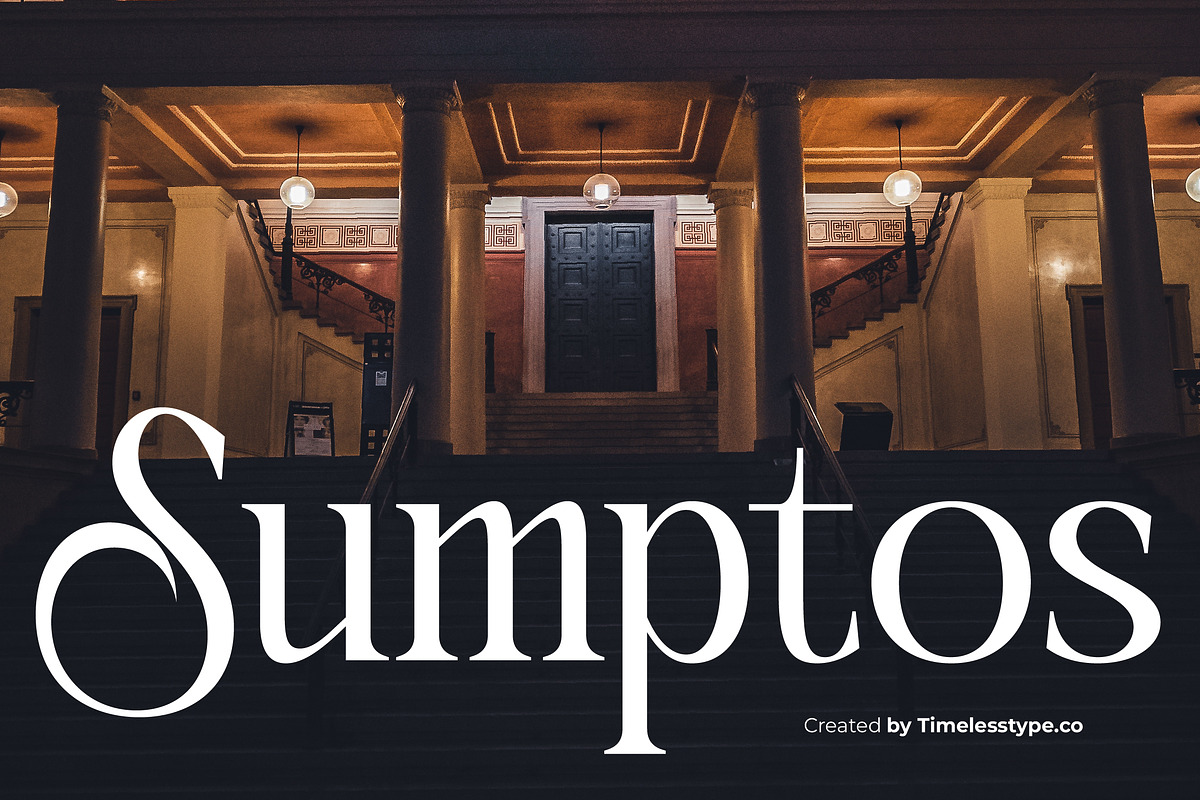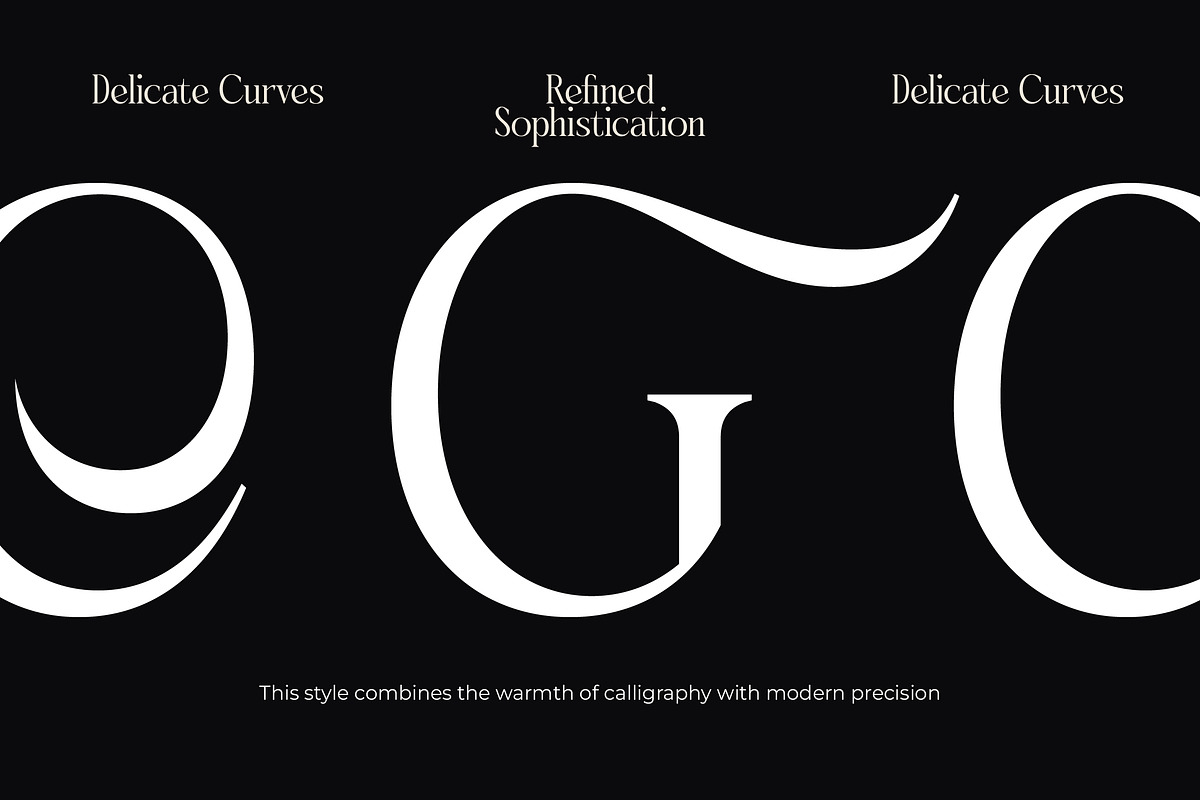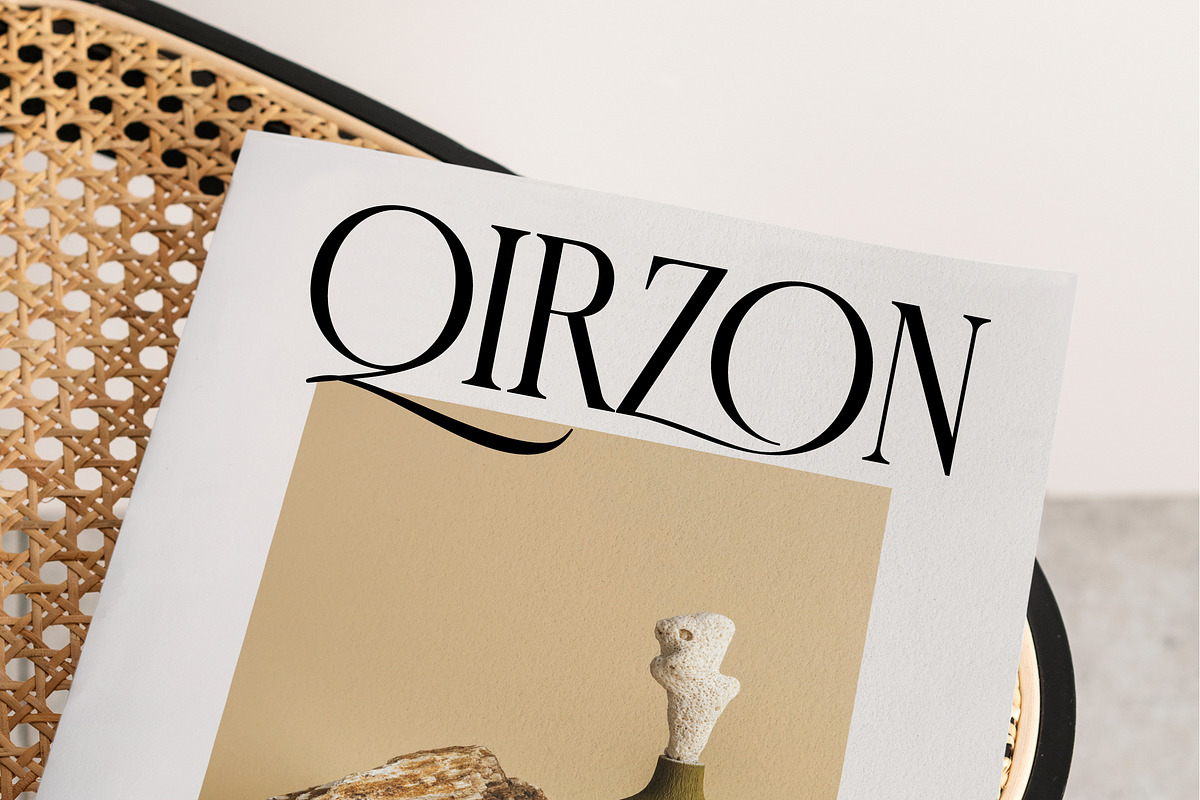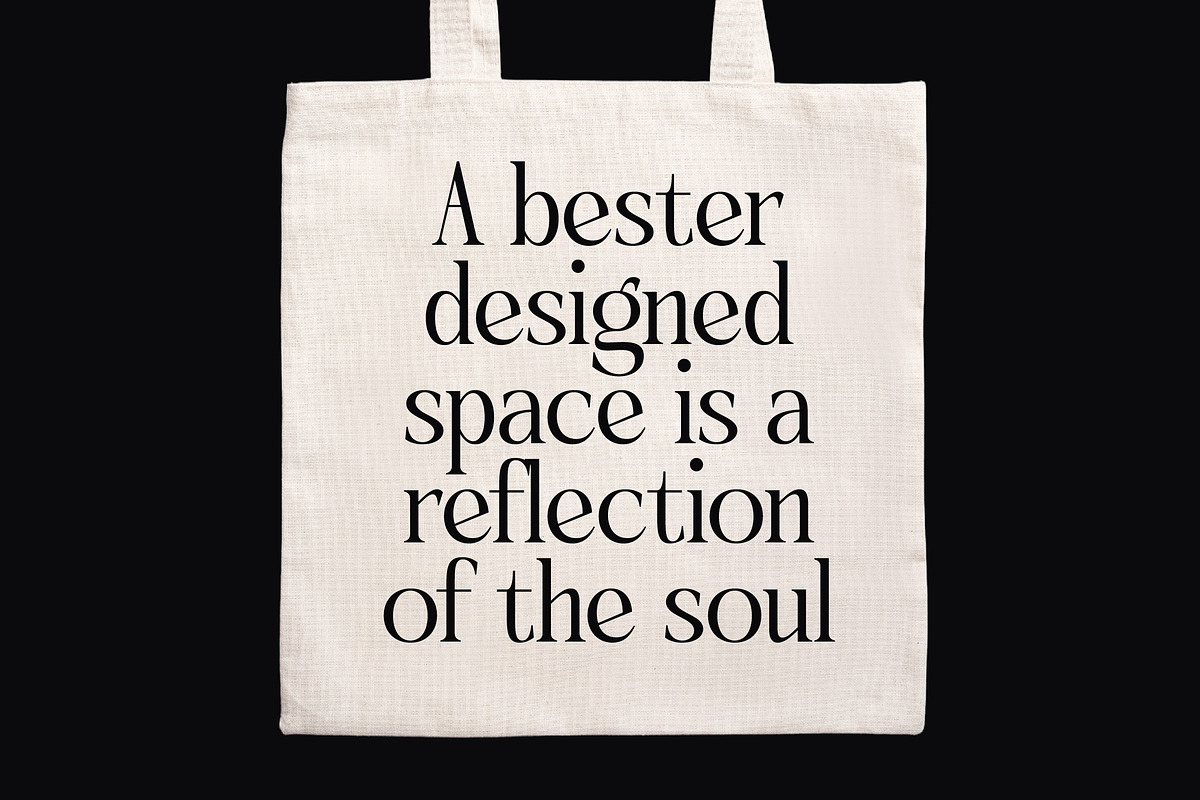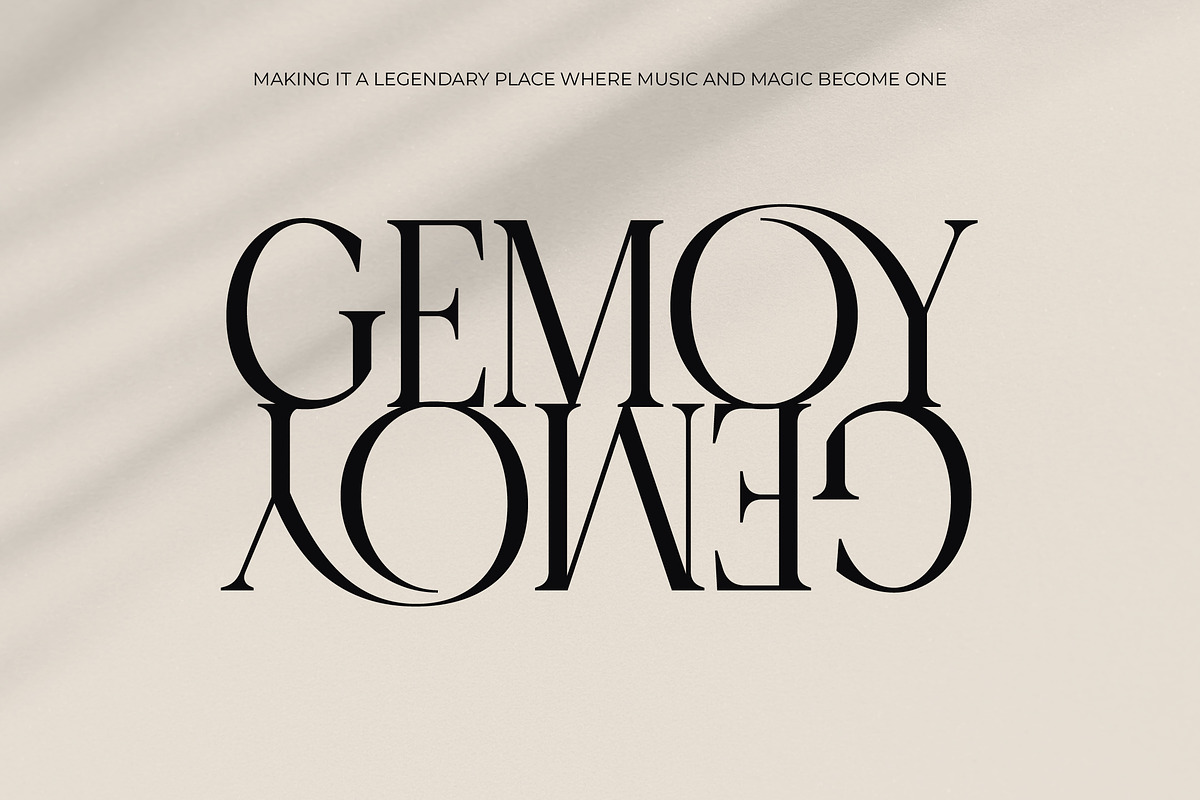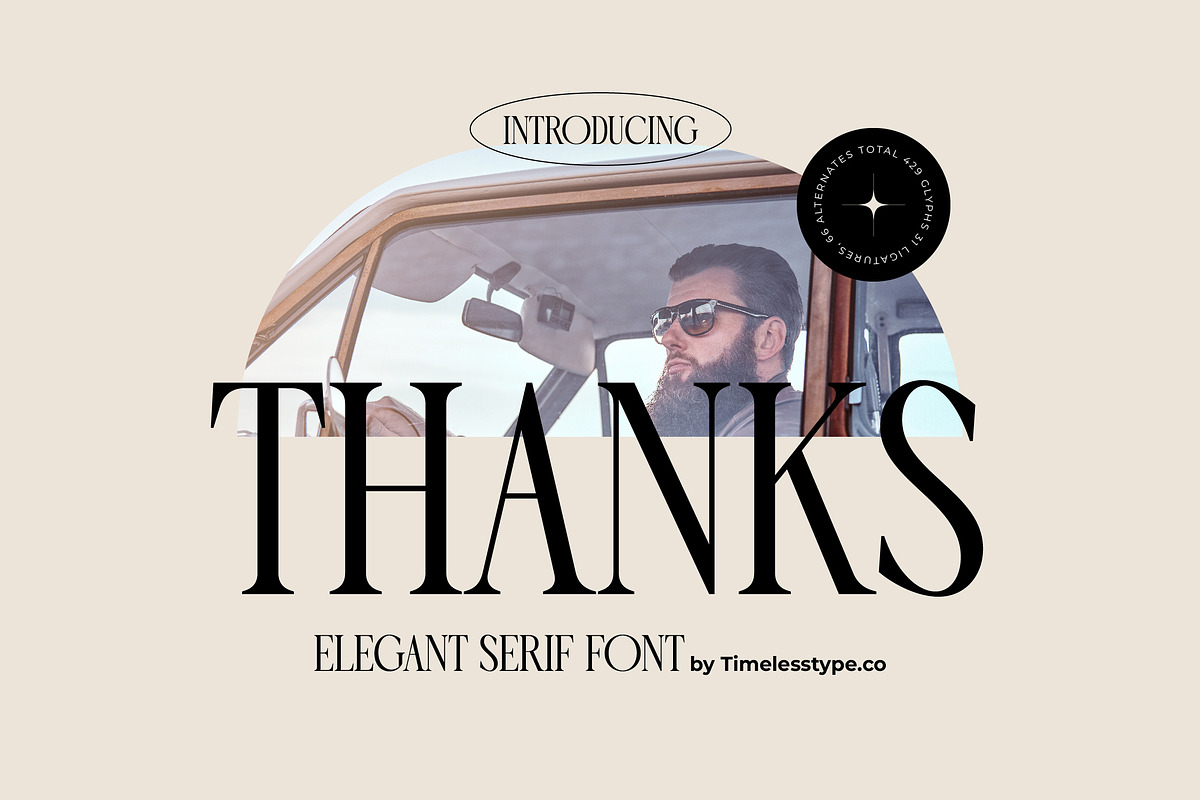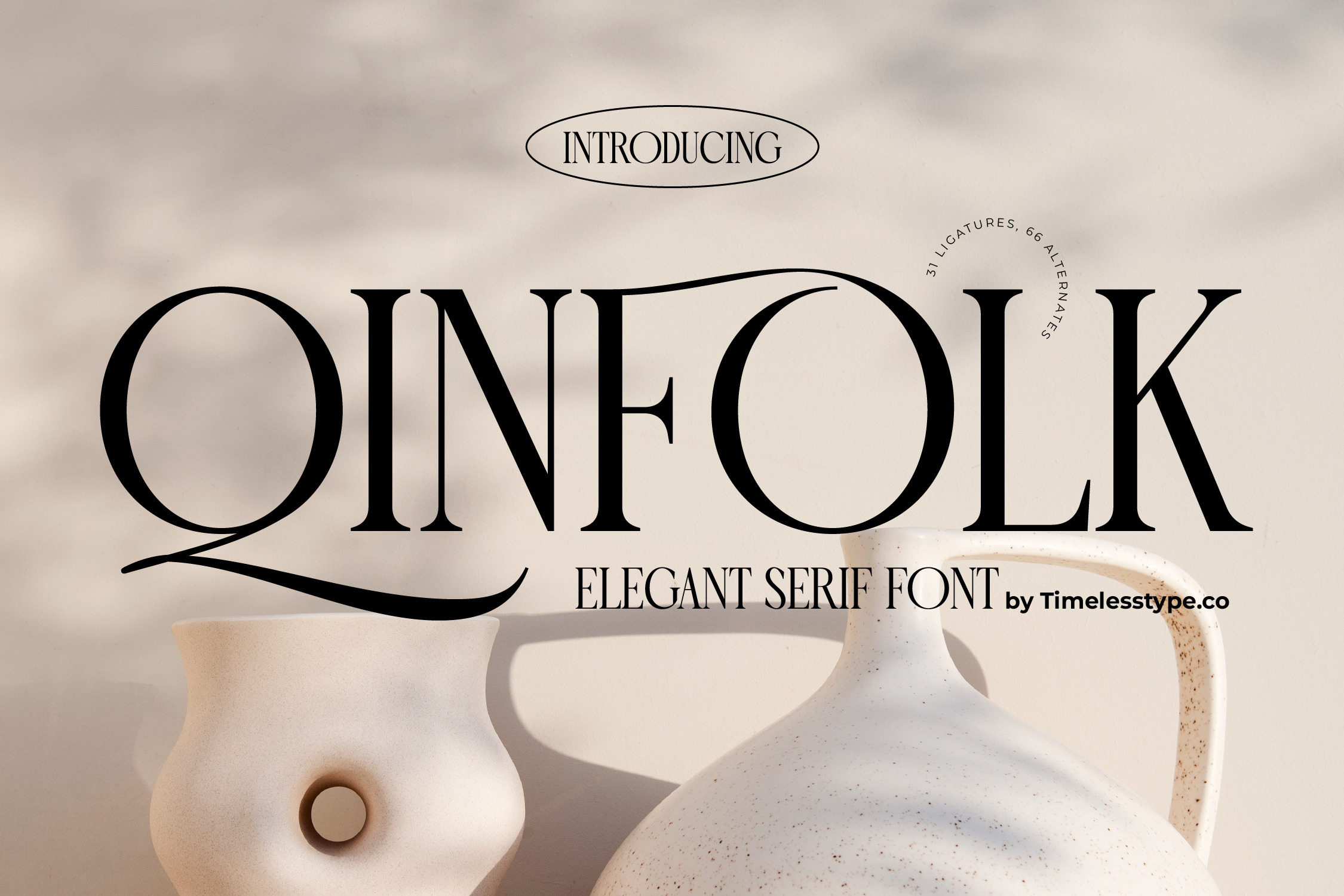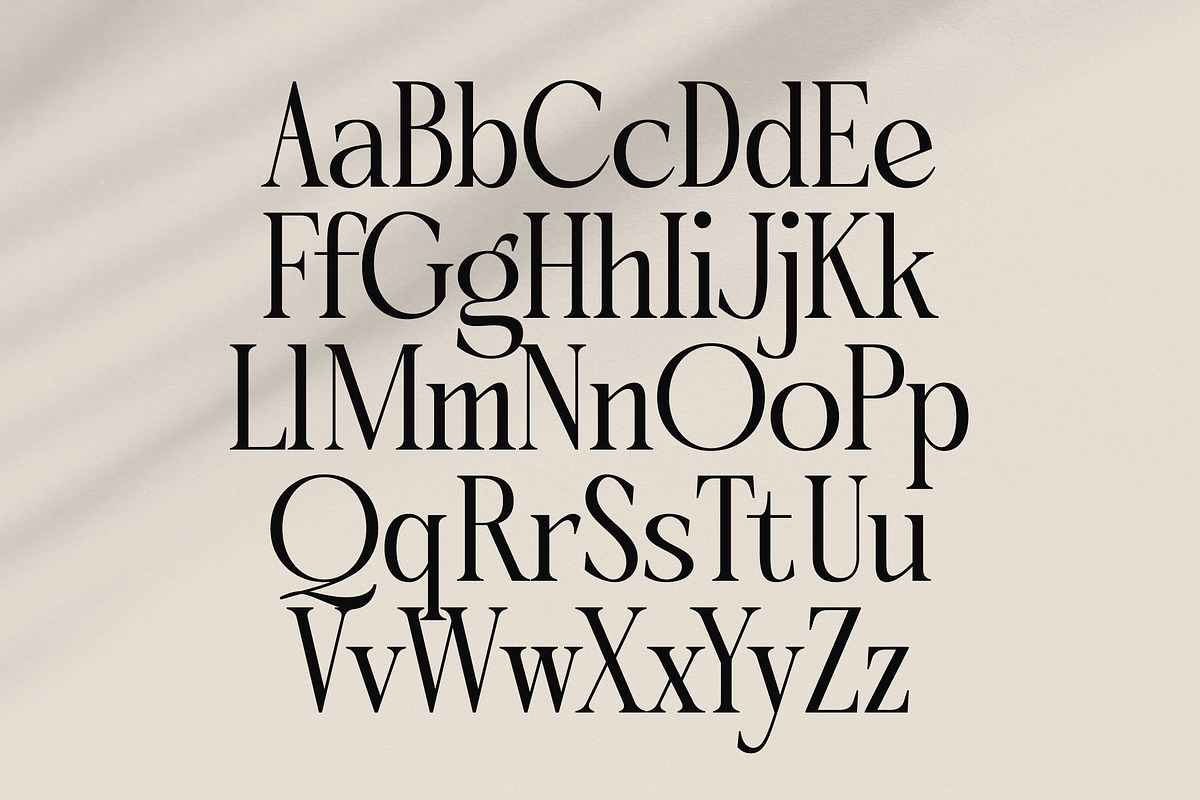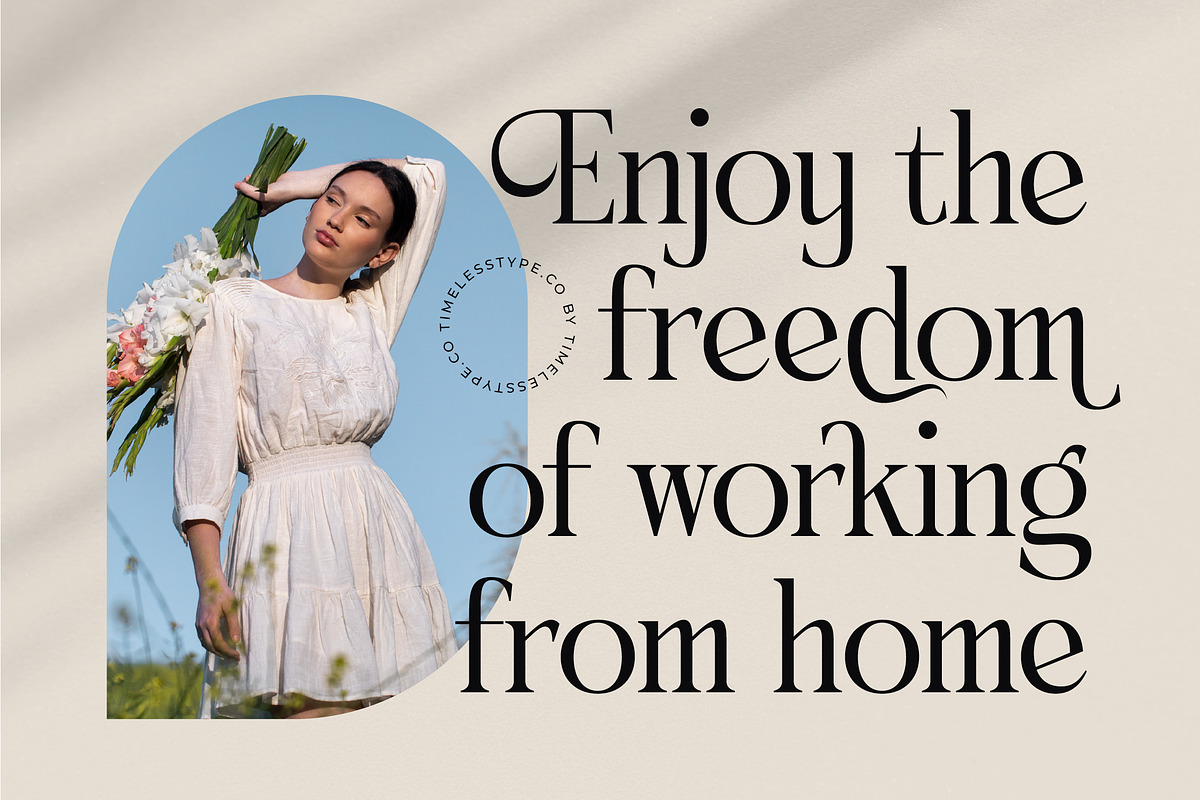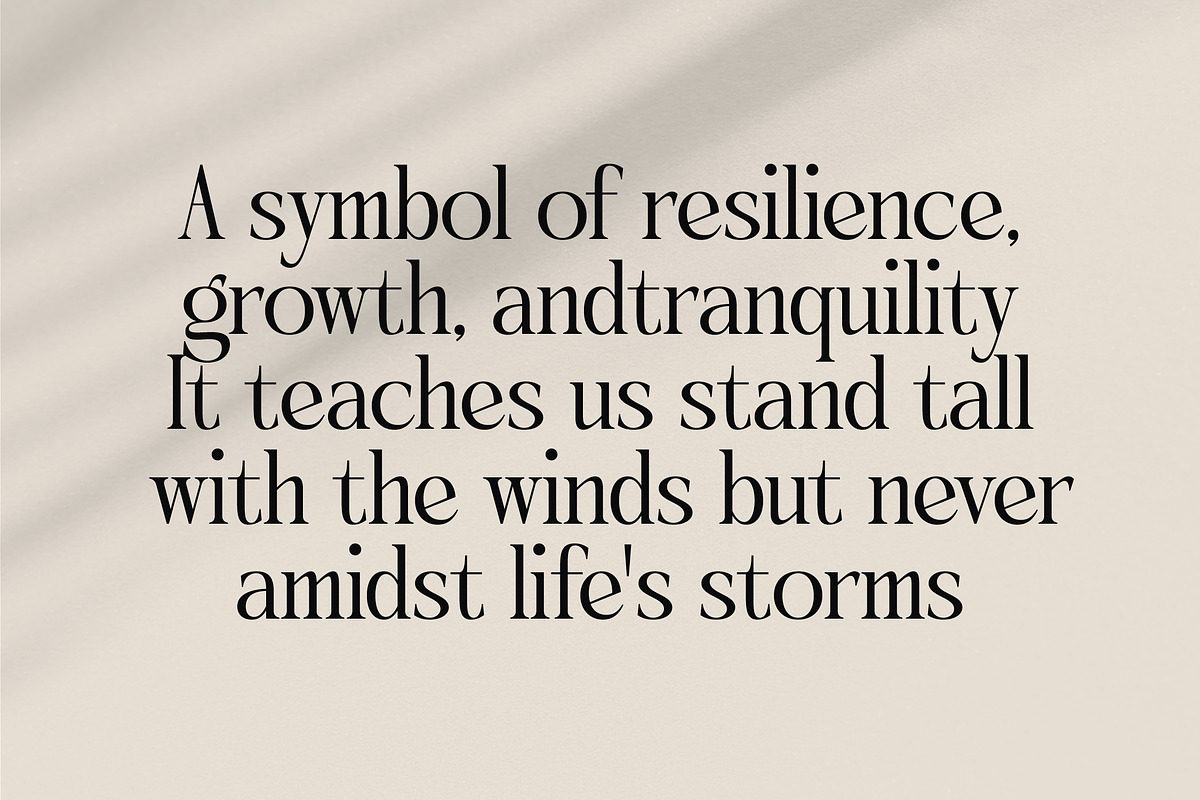
Qinfolk - Elegant Serif Font
Experience the pinnacle of sophisticated design with Qinfolk, a font that redefines elegance through its masterful strokes and refined silhouette. This typeface is crafted for those who seek to imbue their projects with an air of effortless grace and high-fashion allure.
Inspired by the delicate interplay of light and shadow in minimalist architectural spaces, this font draws from organic forms and classic proportions. It captures a sense of timeless beauty, reminiscent of high-end lifestyle journals and the quiet luxury found in curated art galleries.
This modern serif display is engineered for maximum branding impact, offering a level of luxury typography that commands attention while maintaining a whisper of subtlety. Its high-contrast serif design makes it a quintessential editorial font, providing professional designers with a versatile tool for creating stunning visual hierarchies and prestigious identities.
Tapping into the current modern serif trend, this typeface is a perfect match for creatives looking for character-driven typography that feels both contemporary and established. It aligns perfectly with the industry shift toward editorial display fonts that prioritize unique personality over standard, repetitive forms.
From high-concept logo design to cohesive visual branding, this font excels across multiple disciplines including luxury packaging and high-end fashion campaigns. It is an ideal choice for wedding invitations, beauty product labels, and refined editorial layouts where every character needs to convey a sense of premium quality.
To ensure total creative freedom, the package includes an extensive library of custom ligatures and unique alternates that allow for bespoke letter combinations. With fluid swashes and full multilingual support including international characters, this font is equipped for global design challenges and diverse linguistic needs.
- Ligature 31 Alternate 66